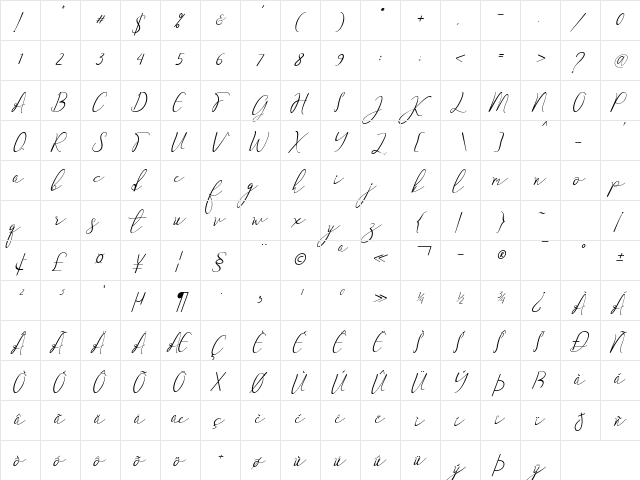
Maretha Italic
Design Context for Maretha Typeface
Maretha is a composed and adaptable typeface that performs quietly and consistently across a wide range of design contexts. Its italic angle brings a sense of urgency and motion to the letterforms.
Pro Tip: Use Maretha for emphasis, pull quotes, and subheadings where its slanted energy can add rhythm to the layout.